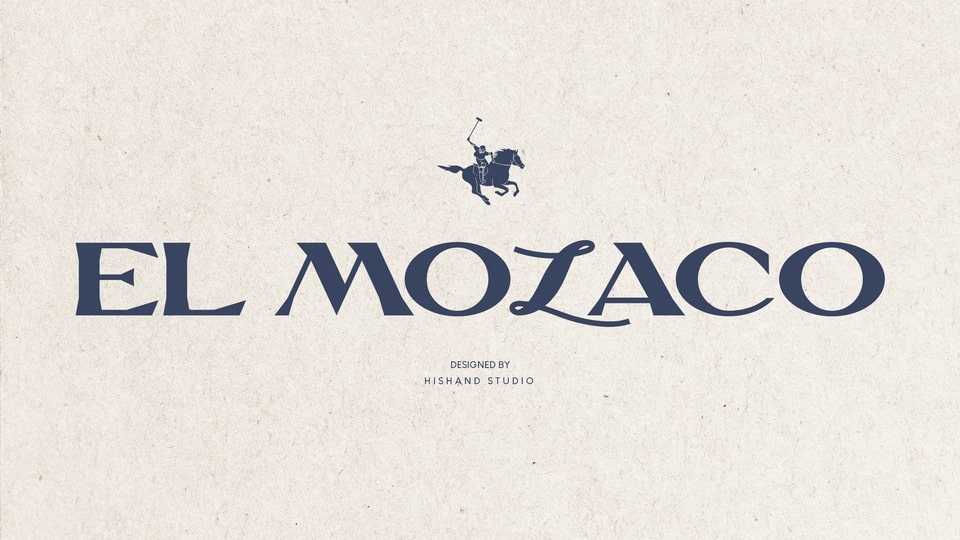
Download El Molaco font, a bold serif display typeface that embodies the essence of luxury and old-money elegance. This newly released typeface is designed to make a statement with its robust and refined characters